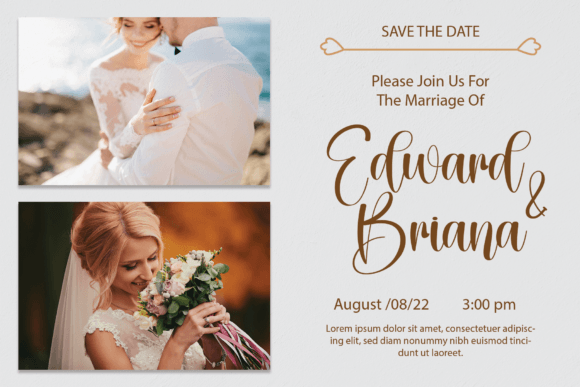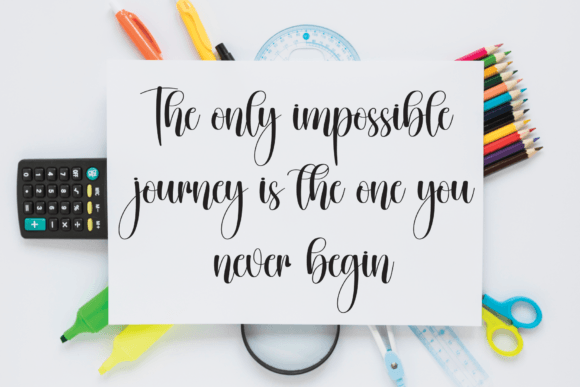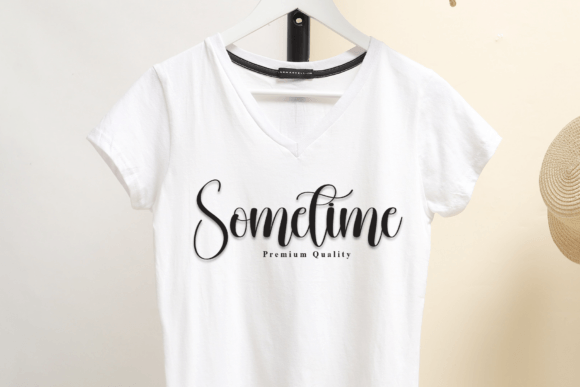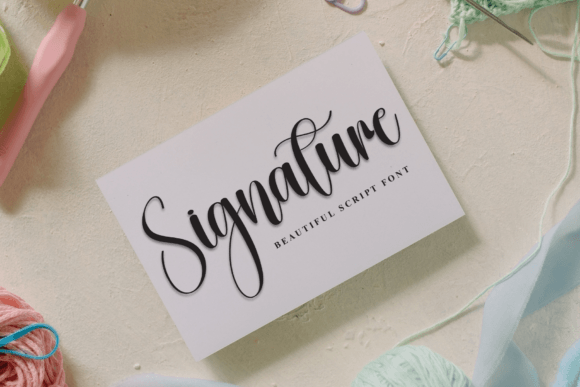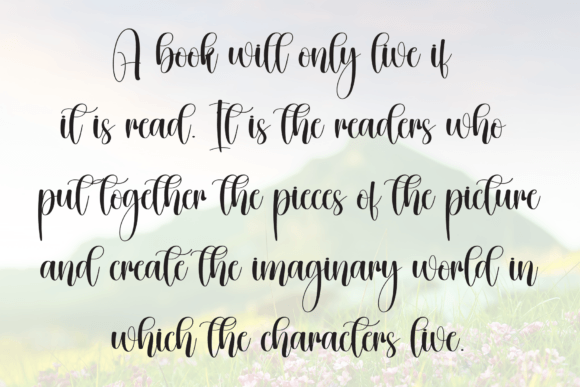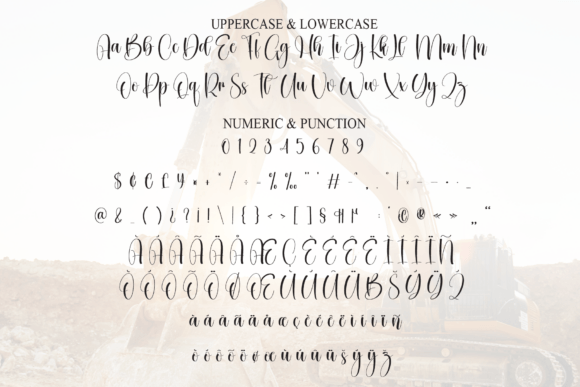
Introducing Excavator Font: Elevate Your Designs with Elegance and Modernity
In the world of typography, fonts play a crucial role in conveying the tone and personality of a brand or project. For designers and crafters seeking a unique and stylish touch, Excavator Font is an exceptional choice. This handwritten font is a perfect blend of elegance and modernity, making it ideal for a wide range of applications, from invitations and branding to packaging and digital media.
The Characteristics of Excavator Font
Excavator Font boasts smooth curves and flowing lines that give it a personal and approachable feel. Its elegant and refined appearance makes it perfect for projects that require a touch of sophistication. The font’s modern design ensures that it stays ahead of the curve, making it suitable for contemporary brands and designs.
What Makes Excavator Font Stand Out
Excavator Font’s unique combination of luxury and friendliness sets it apart from other fonts. It has the ability to make your text stand out beautifully, adding a touch of personality to your designs. Whether you’re working on a branding project, creating invitations, or designing packaging, Excavator Font is sure to make a lasting impression.
Excavator Font’s versatility makes it suitable for a wide range of design projects. Here are some of the ways you can use this beautiful font:
- Invitations: Add a touch of elegance to your wedding invitations, birthday party invites, or any other special occasion with Excavator Font.
- Branding: Use Excavator Font to create a unique and recognizable brand identity that reflects your company’s personality and values.
- Packaging: Make your product packaging stand out with Excavator Font, adding a touch of sophistication and luxury to your product design.
- Digital Media: Use Excavator Font in your digital media, such as social media graphics, blog posts, and email newsletters, to add a personal touch and make your content more engaging.
Tips for Using Excavator Font Effectively
To get the most out of Excavator Font, here are some tips to keep in mind:
- Pair it with contrasting fonts: Combine Excavator Font with a contrasting font to create visual interest and add depth to your design.
- Use it sparingly: Use Excavator Font sparingly to avoid overwhelming your design. It’s perfect for headings, titles, or key messages.
- Experiment with colors: Try out different colors to find the perfect match for your Excavator Font. You can use it in a variety of colors, from bold and bright to soft and pastel.
Excavator Font is a stylish and elegant handwritten font that can elevate your designs to the next level. Its unique combination of luxury and friendliness makes it perfect for a wide range of design projects, from invitations and branding to packaging and digital media. With its smooth curves and flowing lines, Excavator Font is sure to add a personal touch to your designs and make them stand out beautifully.